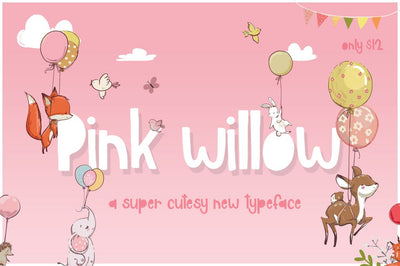
A Pink Willow Font
Download the brand new super cute Pink Willow font for JUST $12! This awesome and unique font includes a wide range of characters and letters, and is perfect for adding a little kooky to any project.